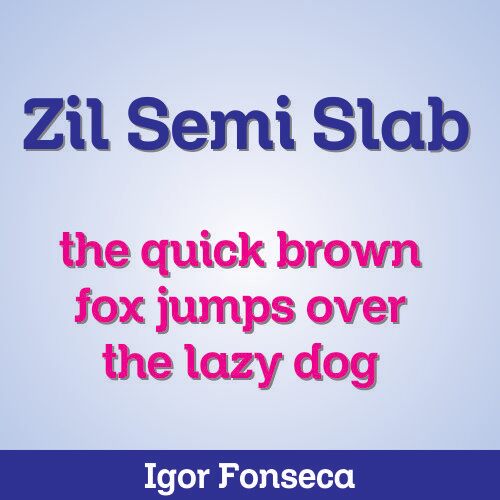
Zil Semi Slab by Igor Fonseca is a free semi-slab serif with massive proportions and a punchy industrial character. Broad curves, blunt slab endings, and tight joins make the lettering look sturdy, compact, and slightly unconventional.
Its retro machine-shop flavor makes it a strong fit for music posters, workwear graphics, and automotive merchandise. The dense shapes also suit food packaging and event signage with an informal, hard-wearing attitude. In branding, the unusual mix of rounded forms and squared details can give a brewery, garage, or streetwear label a recognizable emblem-like identity.